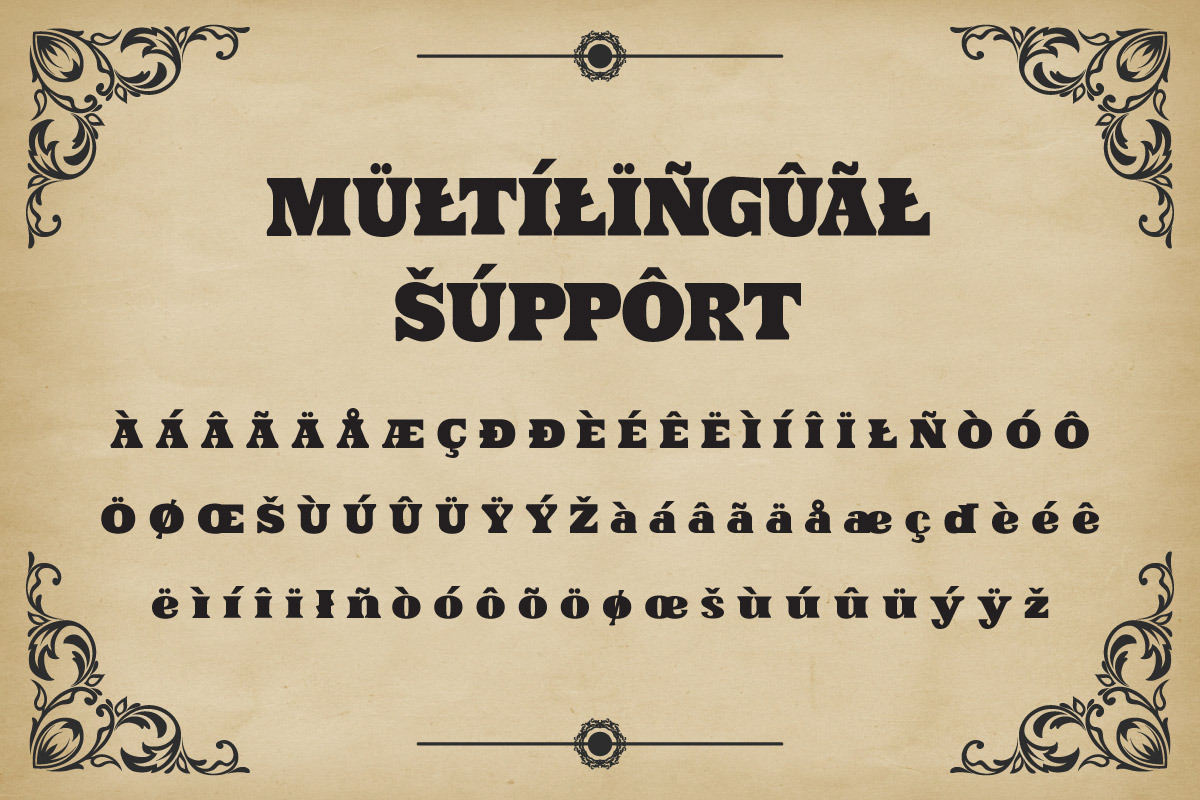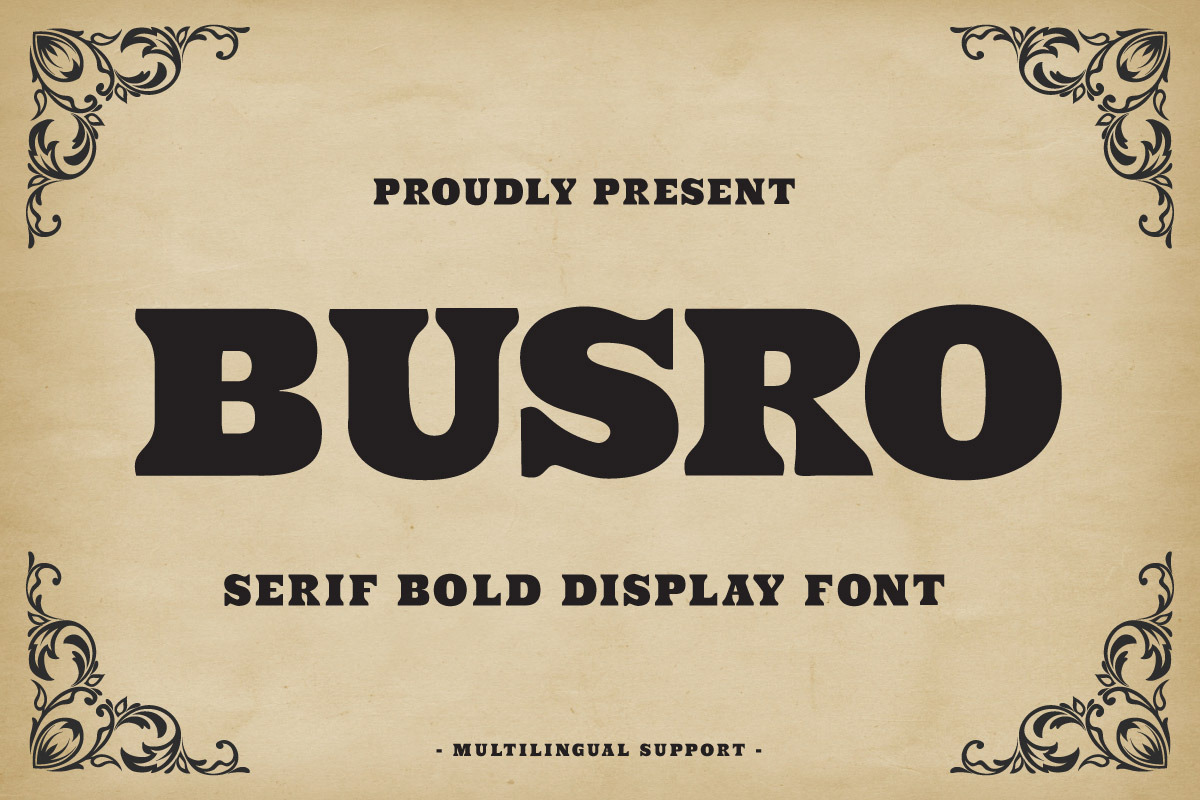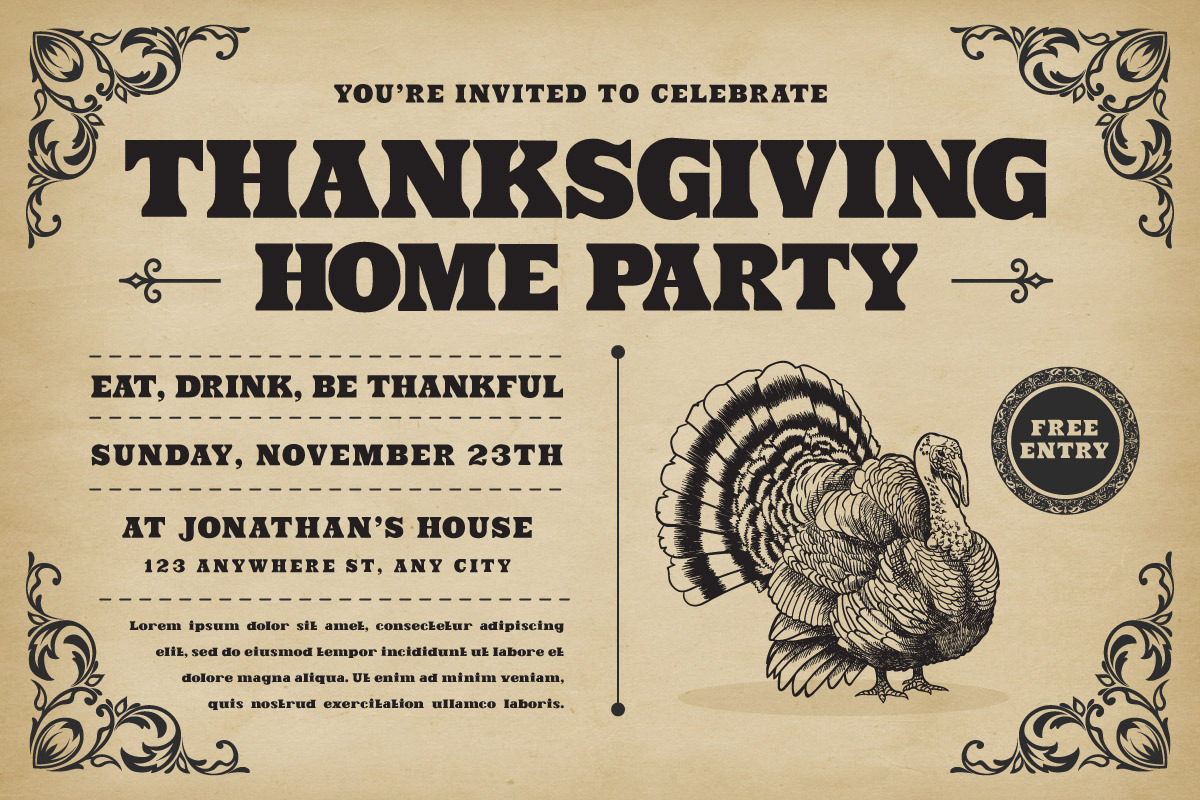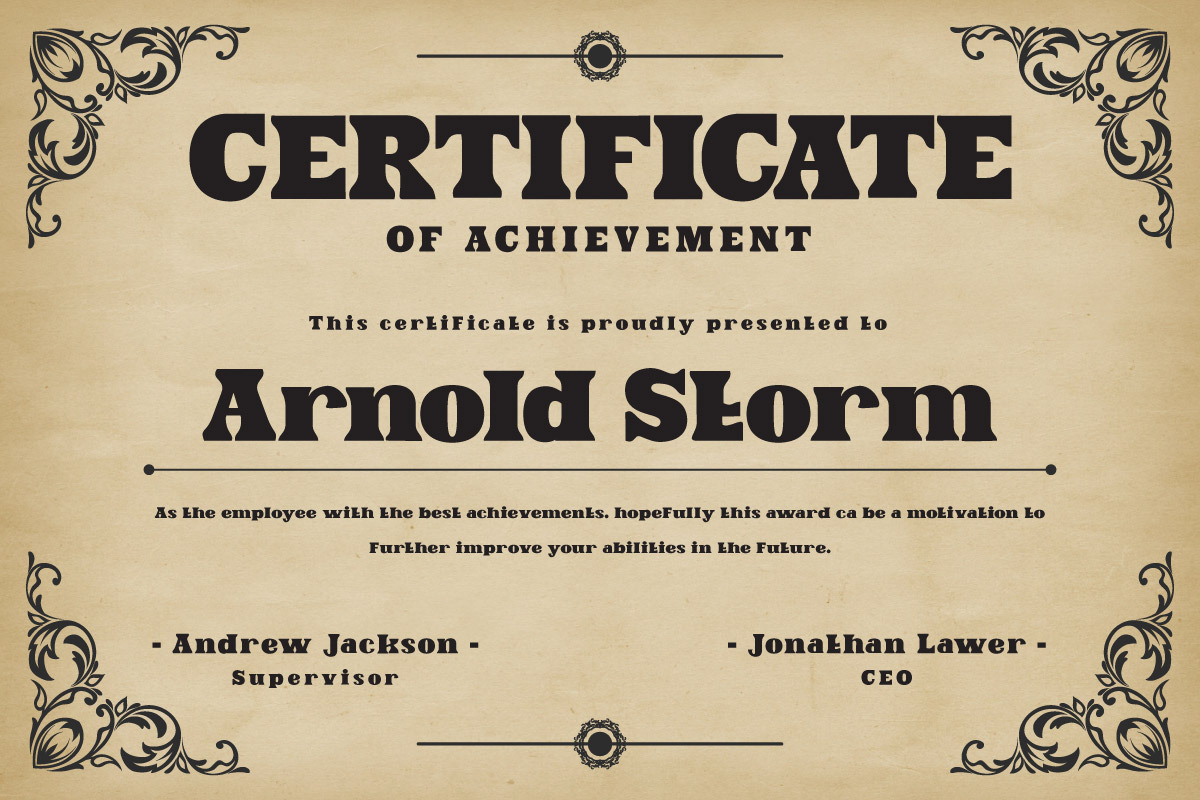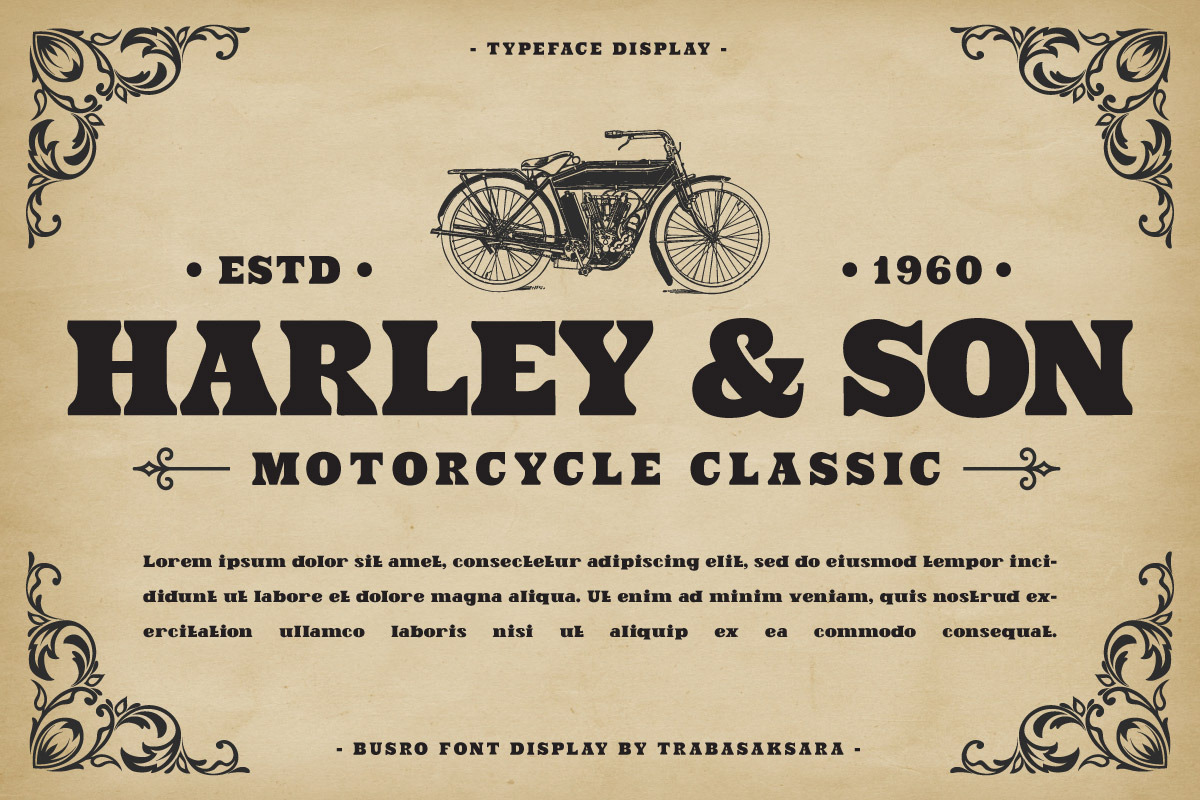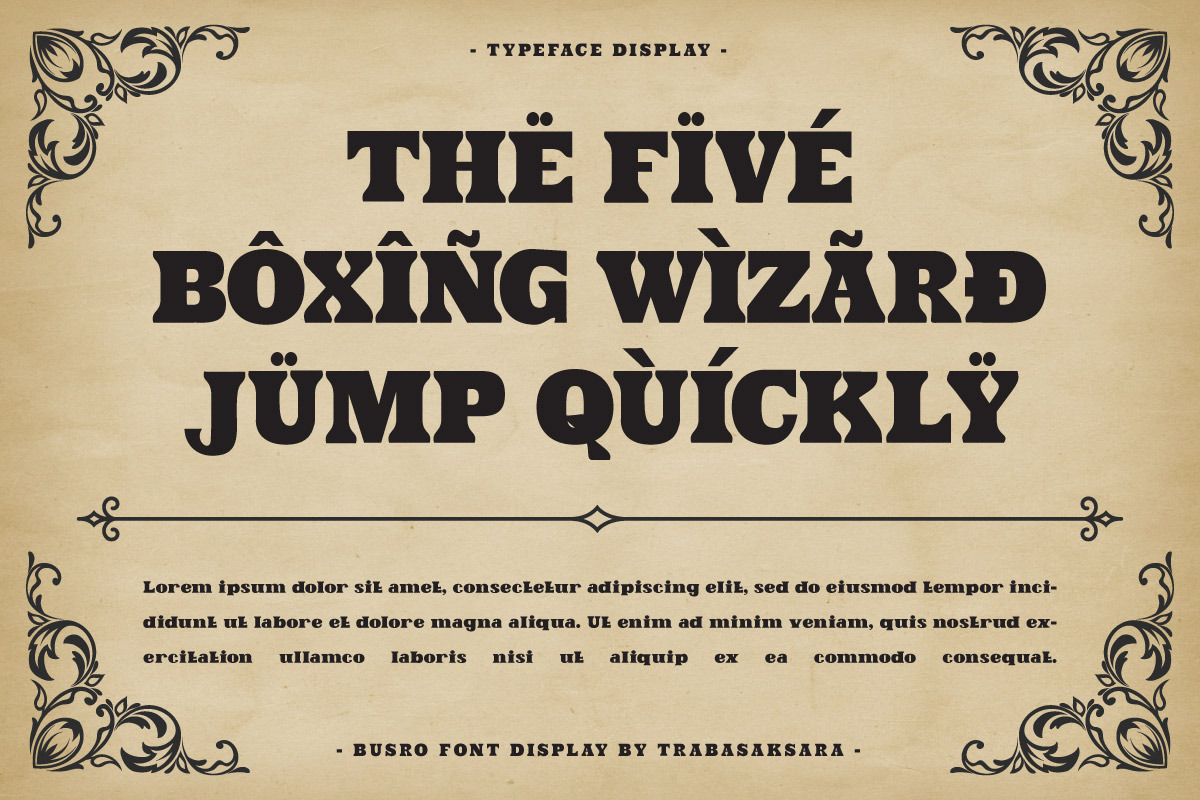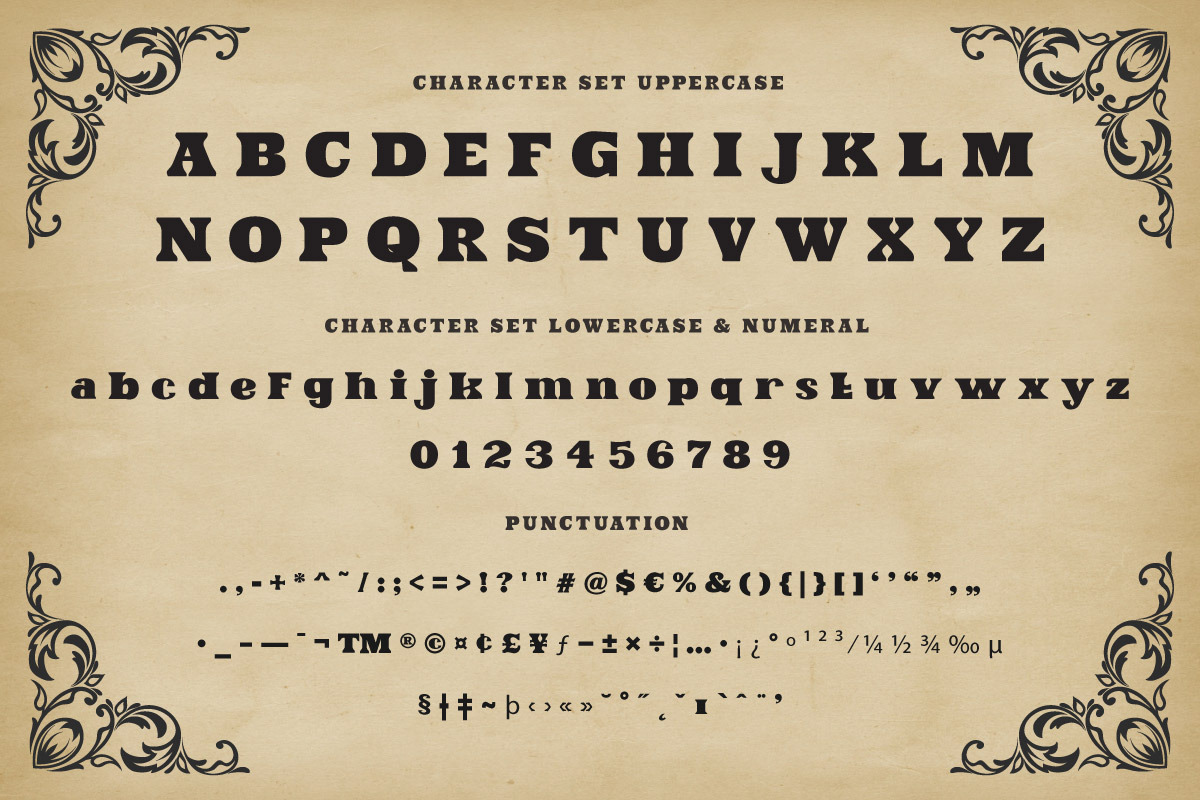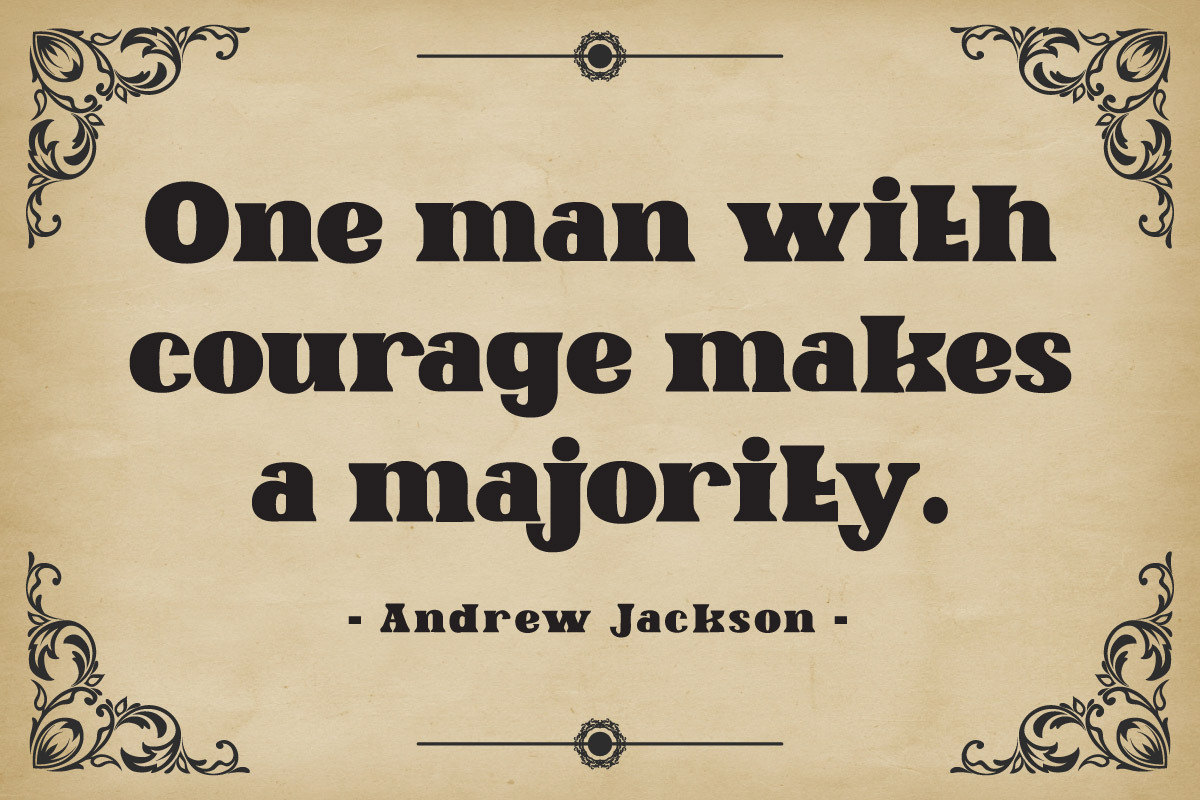
BUSRO - Serif Display Font
BUSRO is a serif display font that combines classic style with modern design. Its elegant serifs and balanced characters make it a versatile choice for a wide range of designs. Whether you’re creating a logo, a headline, or a body of text, BUSRO will add a touch of class.
- Fonts include Multilingual: Support for 85 languages. Afrikaans, Albanian, Asu, Basque, Bemba, Bena, Breton, Catalan, Chiga, Cornish, Croatian, Czech, Danish, Dutch, Embu, English, Esperanto, Estonian, Filipino, Finnish, French, Friulian, Galician, Gusii, Hungarian, Indonesian, Irish, Italian, Kabuverdianu, Kalenjin, Kamba, Kikuyu, Kinyarwanda, Latvian, Lithuanian, Lower, Sorbian, Luo, Luxembourgish, Luyia, Machame, Makhuwa-Meetto, Makonde, Malagasy, Maltese, Manx, Meru, Morisyen, North, Ndebele, Norwegian Bokmål, Norwegian Nynorsk, Nyankole, Oromo, Polish, Portuguese, Quechua, Romanian, Romansh, Rombo, Rundi, Rwa, Samburu, Sango, Sangu, Scottish, Gaelic, Sena, Serbian, Shambala, Shona, Slovak, Slovenian, Soga, Somali, Spanish, Swahili, Swedish, Swiss German, Taita, Teso, Turkish, Upper Sorbian, Uzbek (Latin), Volapük, Vunjo, Walser, Zulu.